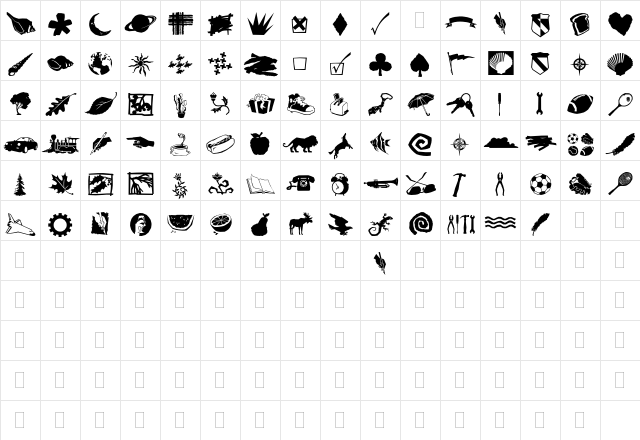
DF Incidentals Regular
Design Context for DF Incidentals Typeface
DF Incidentals is a composed and adaptable typeface that performs quietly and consistently across a wide range of design contexts.